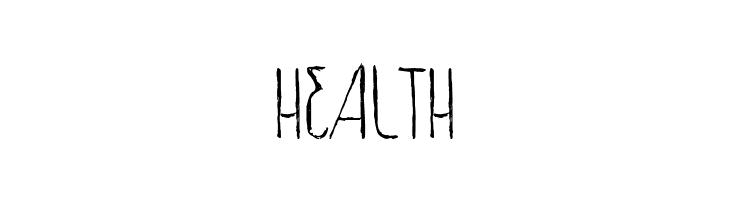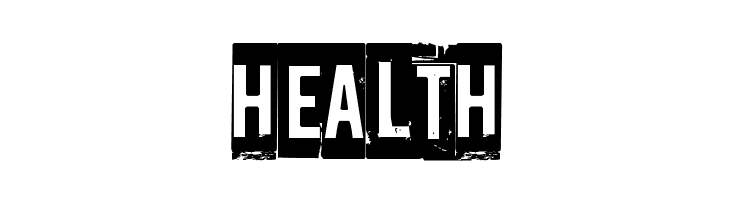
A bold, distressed font with a rugged, grunge appearance.
A distressed, hand-drawn font with a vintage and rustic appeal.
A bold, runic-style font with a rugged, ancient appearance.
A bold, distressed font with a vintage, industrial feel.
A bold, distressed font with a grunge texture, ideal for impactful designs.